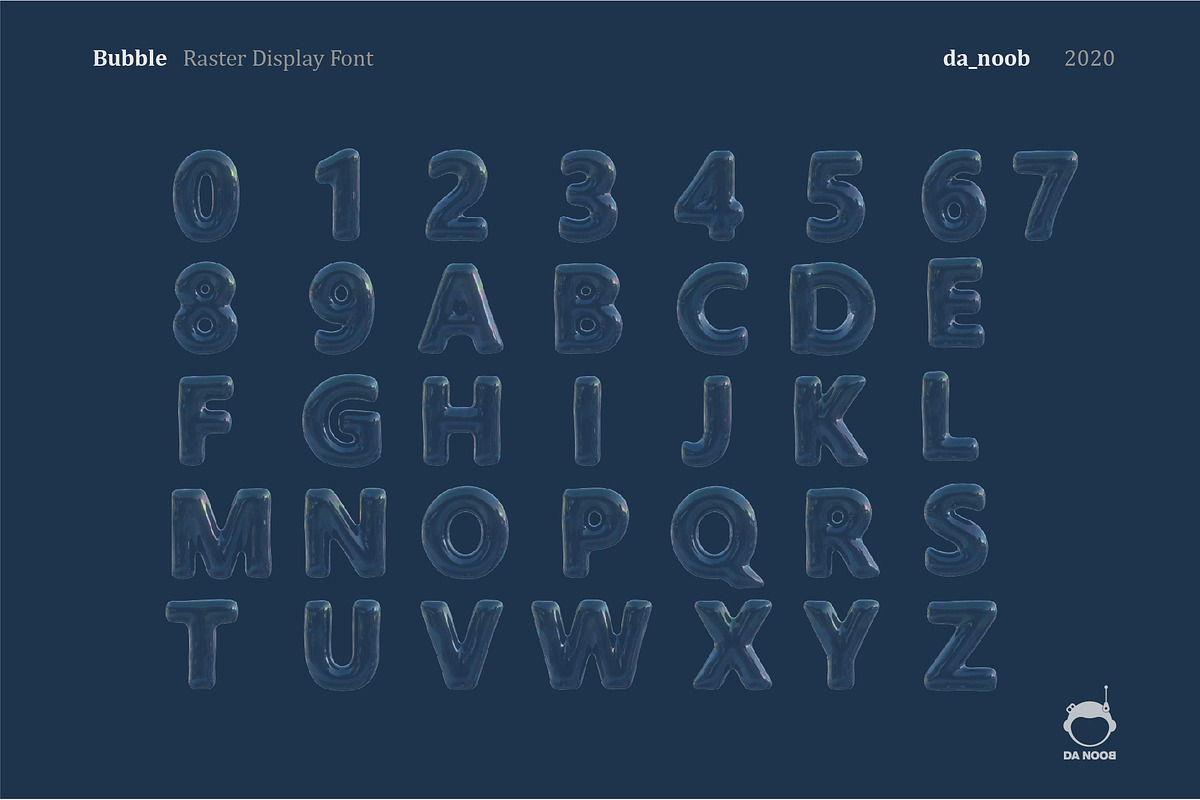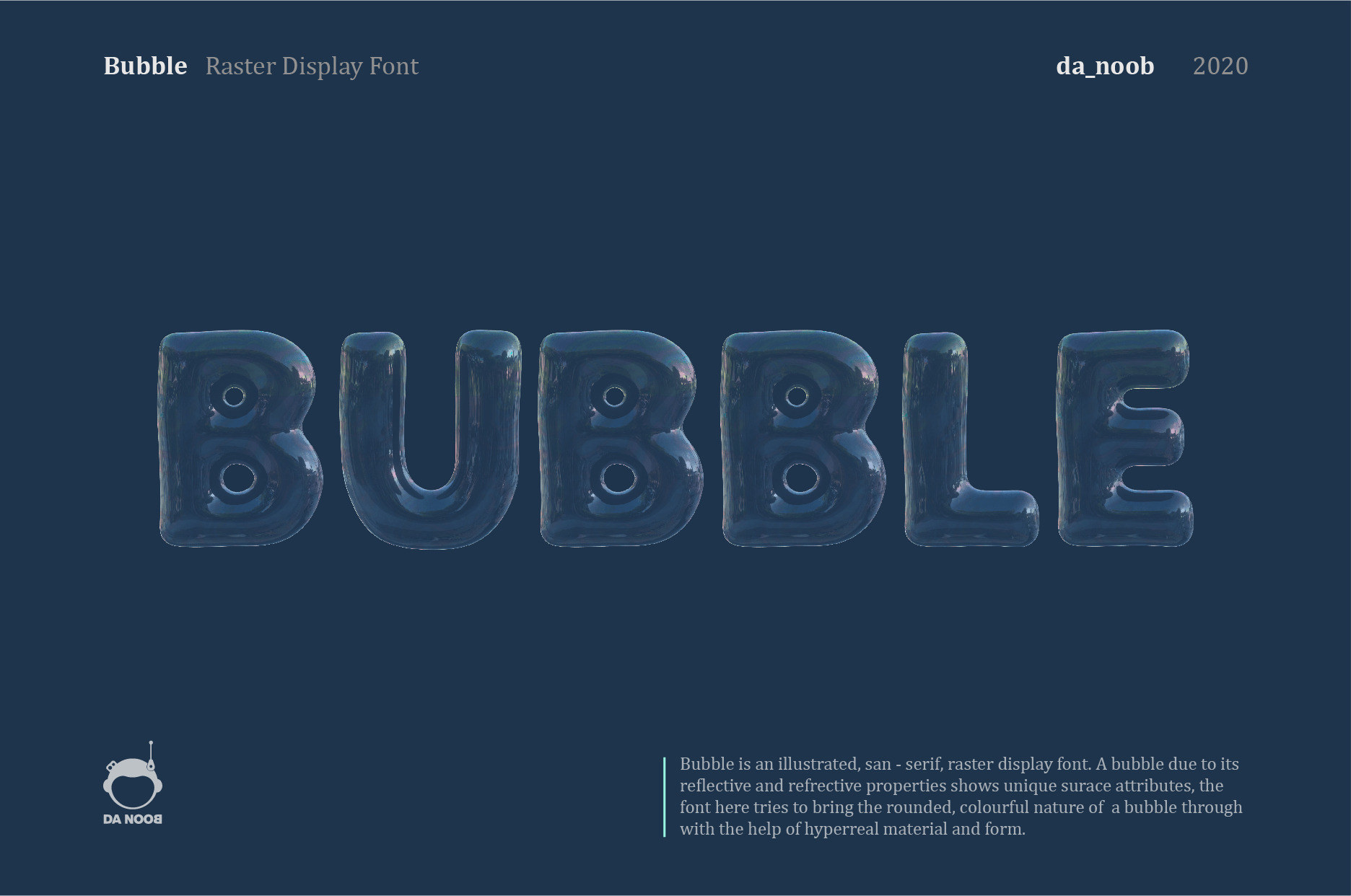
Bubble - Raster display font
Bubble is an illustrated, San - serif, raster display font. A bubble due to its reflective and refractive properties shows unique surface attributes, the font here tries to bring the rounded, colorful nature of a bubble through with the help of hyper real material and form.
Thought the font has distinct use cases depending on the creator, it can be best used for headings, short words and illustrative typographic projects.
PLEASE NOTE that this is a display font.
The font does not contain special characters and small alphabets.
This is not a vector font.